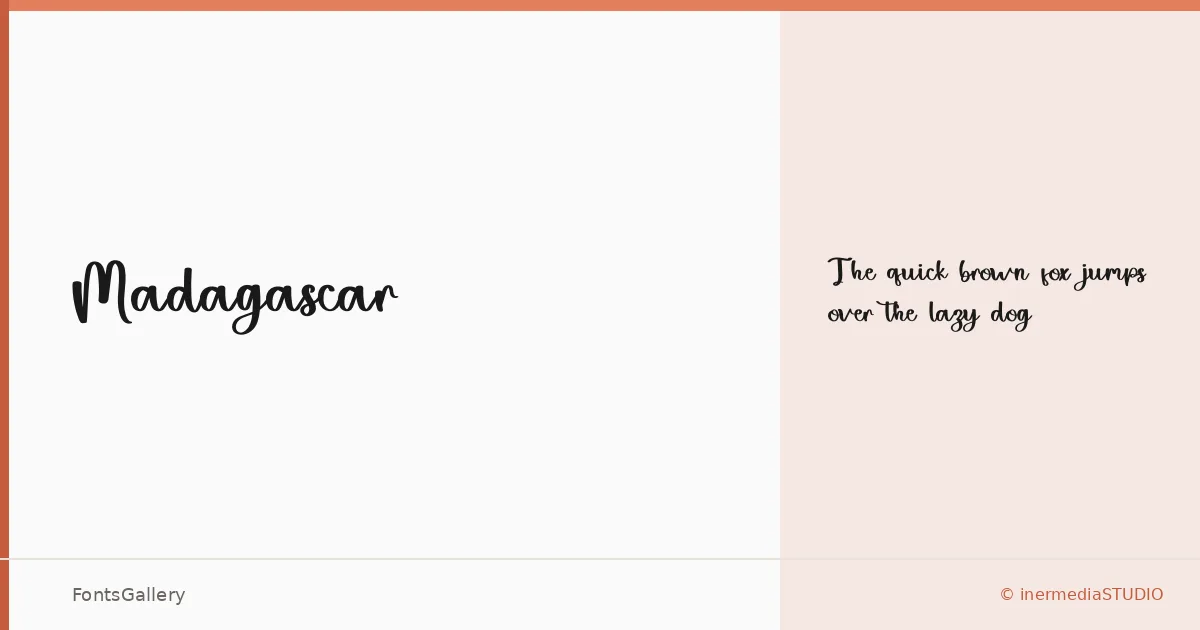
About Madagascar Font
There is a looseness to this script that feels genuinely hand-drawn — the kind of letterform that looks like it was written with intention rather than traced from a grid. Created by inermediaSTUDIO, it arrives as a single Regular weight in OTF format, which keeps the offering focused and the character consistent throughout.
The handwritten category here leans toward the elegant end of the spectrum while holding onto something playful and whimsical at the same time — a romantic quality that suits occasion-driven work rather than utilitarian copy. The flowing strokes carry just enough irregularity to feel personal without becoming difficult to read at display sizes. With partial Latin coverage, it handles the essential characters well for Western-language headlines and short-form text.
Wedding stationery, invitation cards, and greeting cards are obvious homes for this script, and it translates equally well to branding identities and social media graphics where a handcrafted warmth is the point. For contrast and balance, it has been paired with Canela, Helvetica, AQUA, Etna, and ABC Arizona — ranging from refined serifs to clean sans-serifs, each offering a different kind of structural foil to the script's expressiveness.